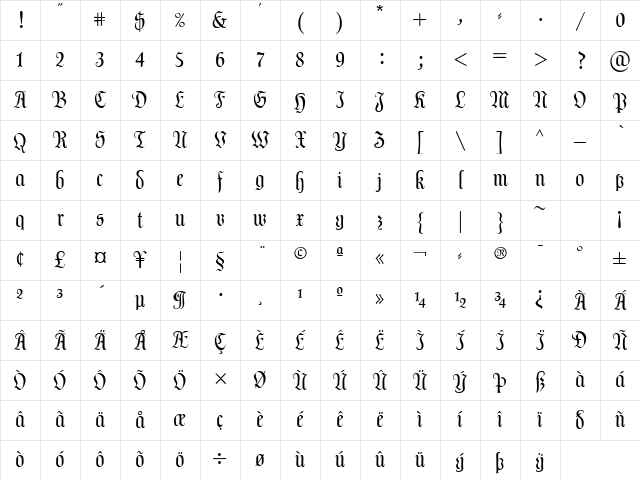
Dala LT Text Regular Free Font
Dala LT Text Regular
Designer: Bo Berndal
Design Context for Dala LT Text
Dala LT Text is a composed and adaptable typeface that performs quietly and consistently across a wide range of design contexts. Its slender proportions lend an understated elegance to any composition.
Pro Tip: Use Dala LT Text in both headline and body roles to test its range before committing to a single application.